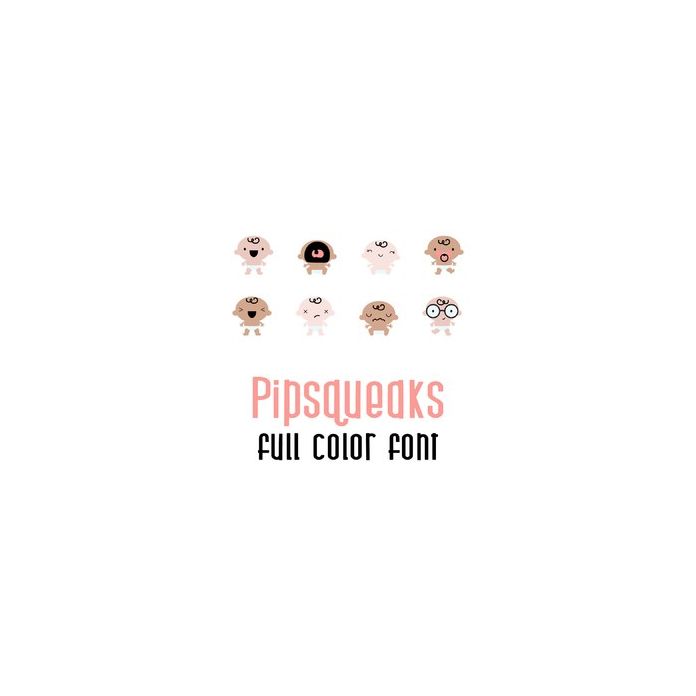
This adorable full color doodlebat font features 26 adorable babies. Perfect for cards, crafts, gifts, decor, scrap book pages, planner stickers and more!